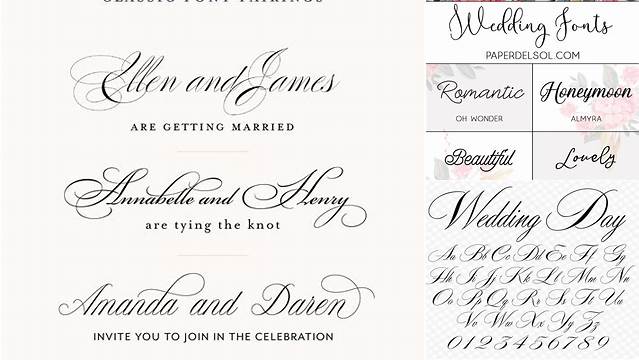
Top Cursive Fonts For Stunning Wedding Invitations
Hey everyone! Planning a wedding is a HUGE deal, right? And one of the first things your guests see is the invitation. It sets the tone, gives them a sneak peek, and gets them excited! That's why choosing the best cursive fonts for wedding invites is super important. It’s like the first impression of your big day! You want something that reflects your style, whether it’s classic and elegant, modern and playful, or something totally unique. Finding the perfect font can feel a bit overwhelming, but don't worry, I'm here to guide you through some amazing options. We'll explore different styles, things to consider, and even where you can find these beautiful fonts. So, let's dive in and find the perfect cursive font to make your wedding invites unforgettable! Remember, the font isn’t just about how the words look; it’s about the feeling they evoke. It’s about crafting an experience, a promise of a beautiful day to come. So, let's make those invites pop and get everyone hyped for your special day! Let's find a font that feels like you and reflects the joy and love you want to share.
Understanding Cursive Fonts: A Beginner's Guide
Alright, before we jump into the best options, let's get a handle on cursive fonts themselves, shall we? Cursive fonts, also known as script fonts, are designed to mimic handwriting. They often feature connected letters, flowing strokes, and elegant flourishes, giving them a sense of sophistication and artistry. Think of them as the visual embodiment of elegance and grace. When choosing a cursive font for your wedding invites, it’s crucial to understand the different categories and styles available. There's a vast range, from classic and traditional scripts to modern and contemporary designs. Knowing the nuances of each style will help you find one that perfectly complements your wedding theme. You'll encounter fonts with delicate, thin strokes that exude a timeless feel, while others boast bolder, more dramatic lines that make a statement. Some scripts emphasize legibility, ensuring your guests can easily read the information, while others prioritize artistic flair, even if it means a little more effort to decipher. Understanding the varying degrees of formality is essential, too. Some fonts are ideal for black-tie affairs, while others are better suited for a relaxed, outdoor celebration. Think about the overall atmosphere you're trying to create. Is it a grand ballroom or a rustic barn? This will guide your selection. Also, consider the contrast between the font and the background. Will it be easy to read? Will it be beautiful? The goal is to create something that is visually appealing and functional. Remember that a well-chosen cursive font can elevate the overall look and feel of your wedding invitations, making them a cherished keepsake for your guests. It’s all about finding the perfect balance between style, readability, and personal preference. Make sure the font speaks to you and captures the essence of your special day.
Classic Cursive Styles for Timeless Weddings
For those dreaming of a wedding with a touch of timeless elegance, classic cursive styles are your go-to. These fonts are characterized by their traditional elegance, refined strokes, and enduring appeal. They're like the little black dress of wedding invitations – always in style and always perfect. Think of fonts like “Script MT Bold” or “Edwardian Script ITC,” which are known for their graceful curves and readability. They bring a sense of history and sophistication to your invites, ideal for formal weddings, grand ballrooms, or traditional ceremonies. Choosing a classic cursive style can make your invitations instantly recognizable and memorable. The delicate details and carefully crafted letters evoke a sense of luxury and refinement that will wow your guests. When selecting a classic font, consider the weight and spacing. A font that is too heavy might look overwhelming, while one that is too light could be difficult to read. The spacing should be generous enough to prevent the letters from blending together but not so wide that it loses its elegance. You can experiment with different sizes and styles to find the perfect fit for your invitation design. Pair these fonts with elegant paper stocks and classic color palettes to create a cohesive and sophisticated look. Remember, the goal is to capture the essence of timeless beauty and grace, creating an invitation that your guests will treasure for years to come. It's about making a statement, not just sending a message. It’s about creating an anticipation for the amazing day ahead! So, if you love timeless traditions and an elegant ambiance, classic cursive styles are the best choice for you.
Modern Cursive Fonts: A Contemporary Touch
If your wedding vibe is more about modern trends and contemporary aesthetics, then modern cursive fonts are your best friends. These fonts bring a fresh and stylish twist to traditional invitations, featuring clean lines, unique letterforms, and a sense of modern flair. They’re perfect for couples who want to make a bold statement and set their wedding apart. Look for fonts like “Hello Honey” or “Great Vibes,” which often showcase a blend of handwritten and digital elements. These fonts offer a more relaxed, playful, and contemporary feel, ideal for modern weddings, urban venues, or couples who want to break away from tradition. They often include eye-catching flourishes and unique letter connections, adding a touch of individuality to your invites. Modern cursive fonts are all about creativity and personalization. They can be adapted to fit your unique style. You can pair them with bold colors, geometric designs, and minimalist layouts to create a cohesive and stylish look. Don't be afraid to experiment with different weights, sizes, and effects to achieve the perfect balance. When choosing a modern font, ensure readability is a top priority. While artistic flair is important, your guests should still be able to easily read the invitation details. The goal is to create an invitation that reflects your personality and the modern spirit of your wedding. It’s about making a statement and starting a conversation. So, if you and your partner love modern design and a trendy atmosphere, then modern cursive fonts are a fantastic way to reflect that on your wedding invites.
Playful Cursive Options for Fun Wedding Invites
For couples planning a wedding that's all about fun, laughter, and lightheartedness, playful cursive options are the way to go. These fonts inject personality, charm, and a sense of whimsy into your invitations. They are like the life of the party, setting a joyful tone from the moment your guests open the envelope. Consider fonts with bouncy, cheerful characters and unique features that add a touch of delight. Think about fonts like